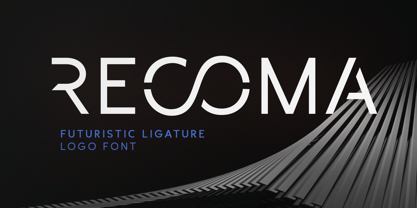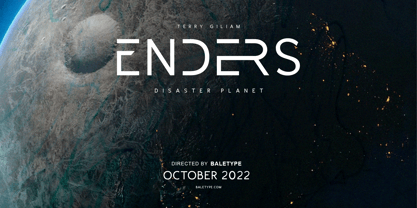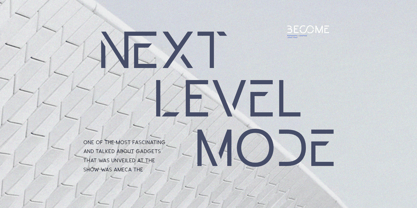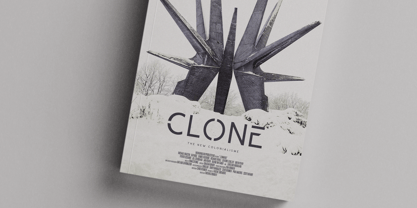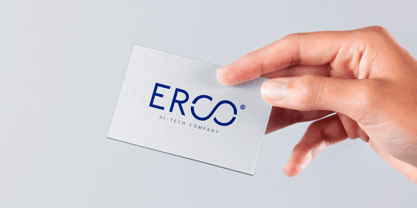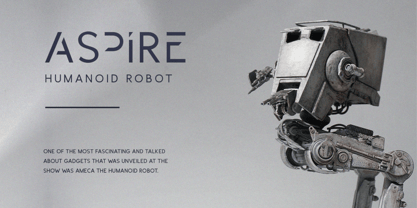
Recoma
by Bale Type
The Recoma Font Family was designed by Sarid Ezra, Dzikrul Aulia and published by Bale Type. Recoma contains 1 styles.
Recoma is a futuristic logo font based on sans serif. With unique and twisted lowercase, you can make your logo looks more attractive and modern. This font also including creative ligature that will make your project looks more stunning. You can use this font for branding, logo, and designs that require sci-fi looks. This font also support multilingual.